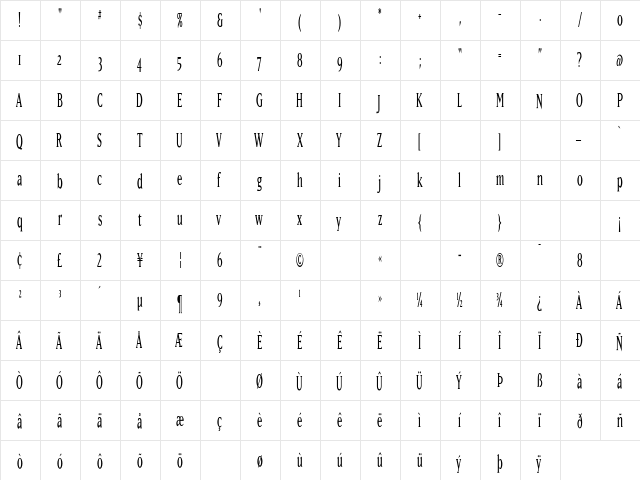
Matrix-Narrow Roman
Design Context for Matrix-Narrow Typeface
Matrix-Narrow is a composed and adaptable typeface that performs quietly and consistently across a wide range of design contexts. Its narrow stance lets it pack a punch even in space-constrained designs.